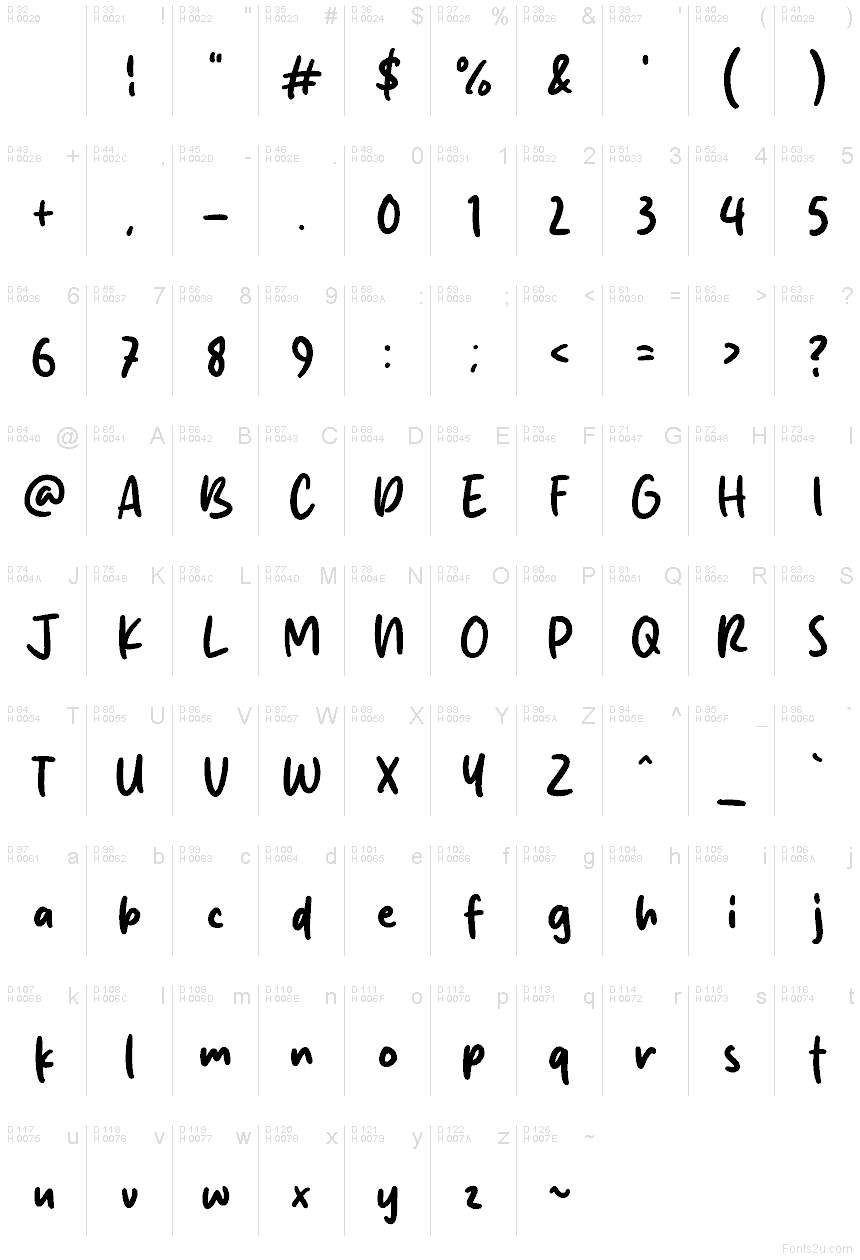
Smile City
Smile City font by MJType is a free handwritten display font that solves the classic “cute but readable” dilemma. Its inky strokes stay steady, with rounded ends and a gentle bounce that feels friendly without getting messy. The letters breathe—nice open shapes and forgiving spacing—so headlines pop and captions stay clear, even on small labels or busy backdrops.
Using Smile City, you get a warm, upbeat voice that shines on snack packaging, classroom posters, kids’ book covers, coffee shop menus, wellness brands, and cheerful social posts. This free font brings a smooth, brushy rhythm that keeps layouts lively yet consistent. Pair it with a clean grotesk sans for body text, and let Smile City handle the big, smile-inducing moments.